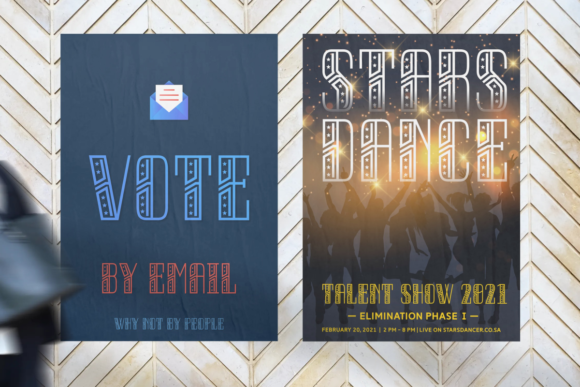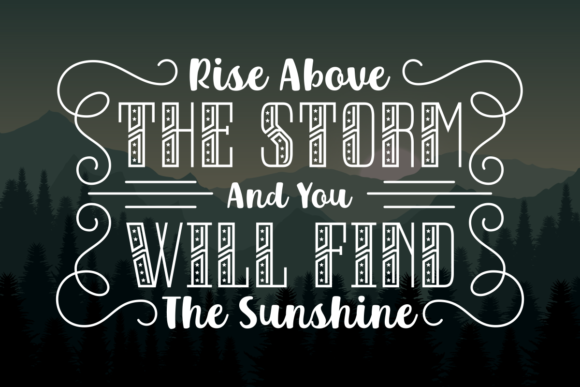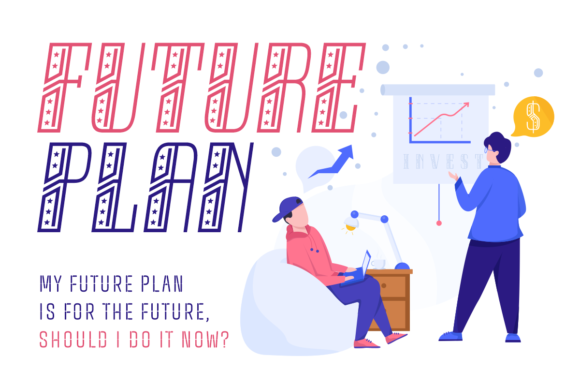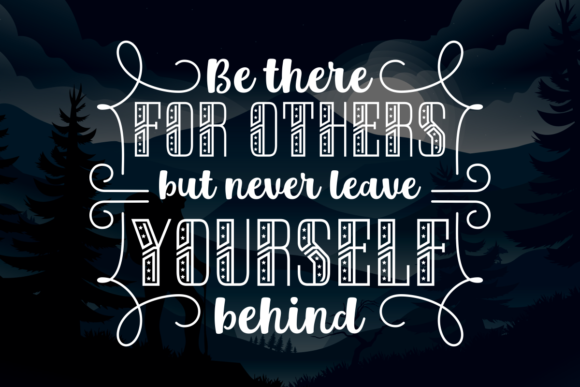
Introduction to Home Idotry Stars Font
Home Idotry Stars is a bold and incredibly authentic display font.
Key Features of Home Idotry Stars Font
Why Choose Home Idotry Stars Font?
Home Idotry Stars Font offers exceptional quality and versatility, making it a valuable addition to your design toolkit. Whether you’re creating for personal projects or commercial use, Home Idotry Stars Font delivers professional results.